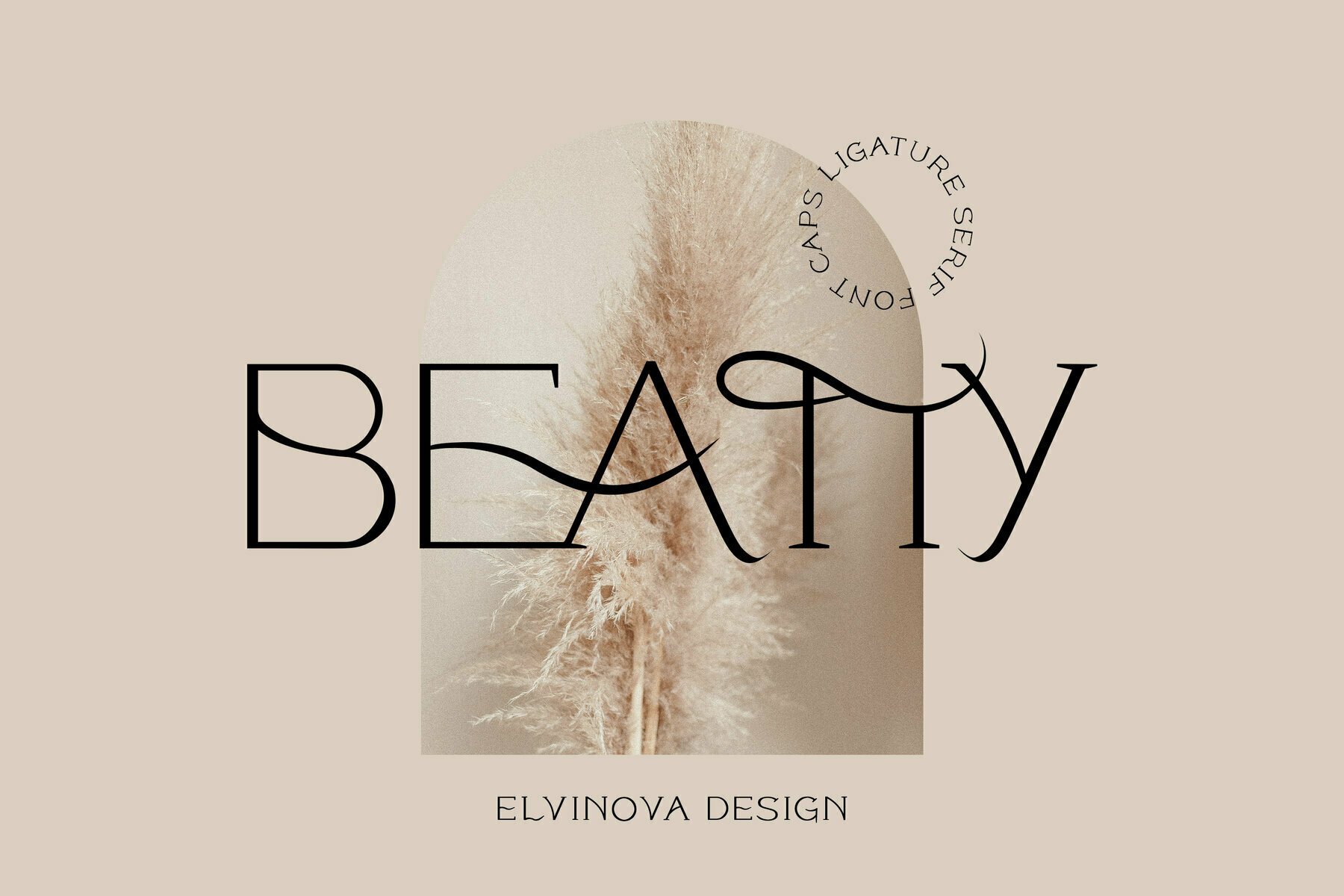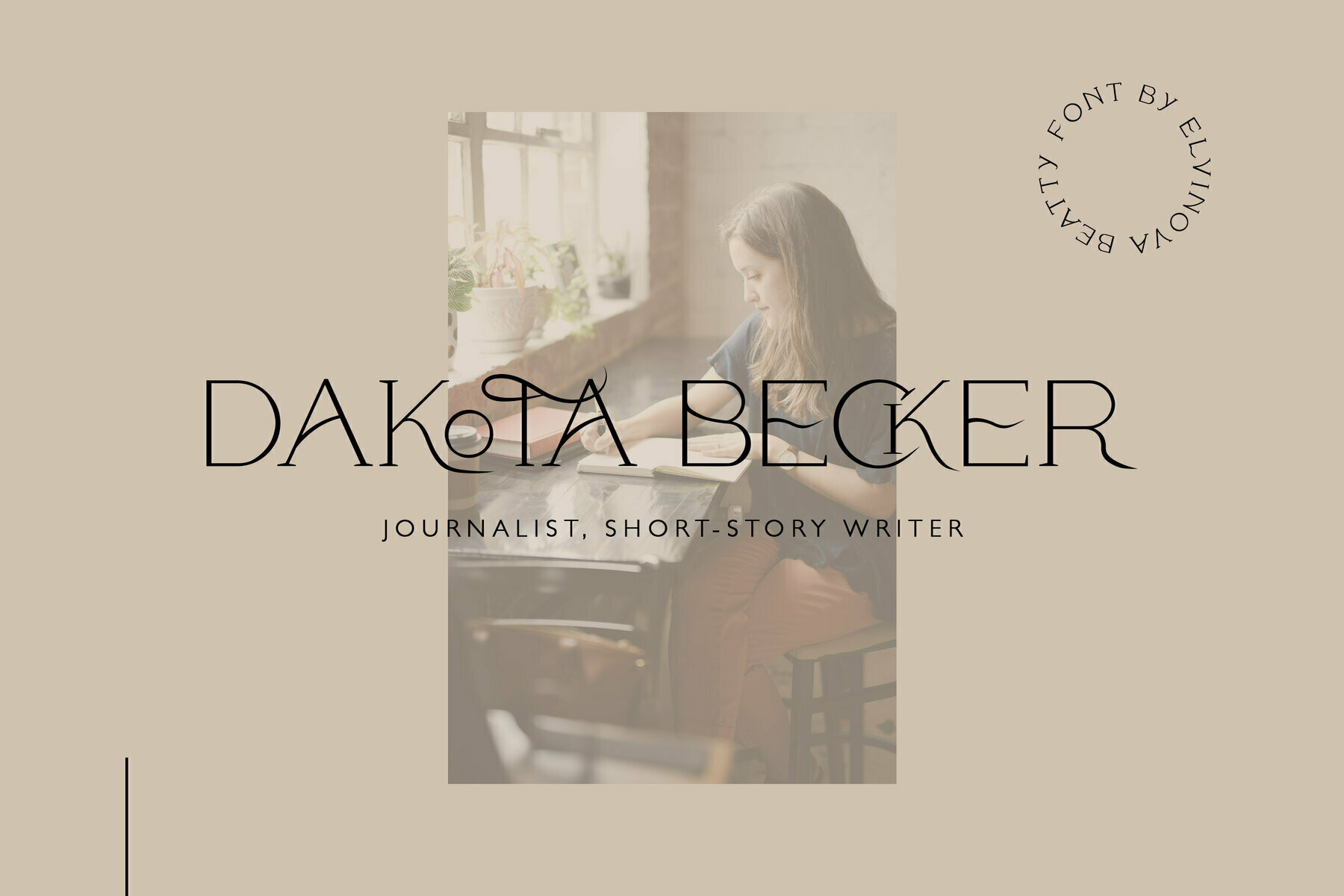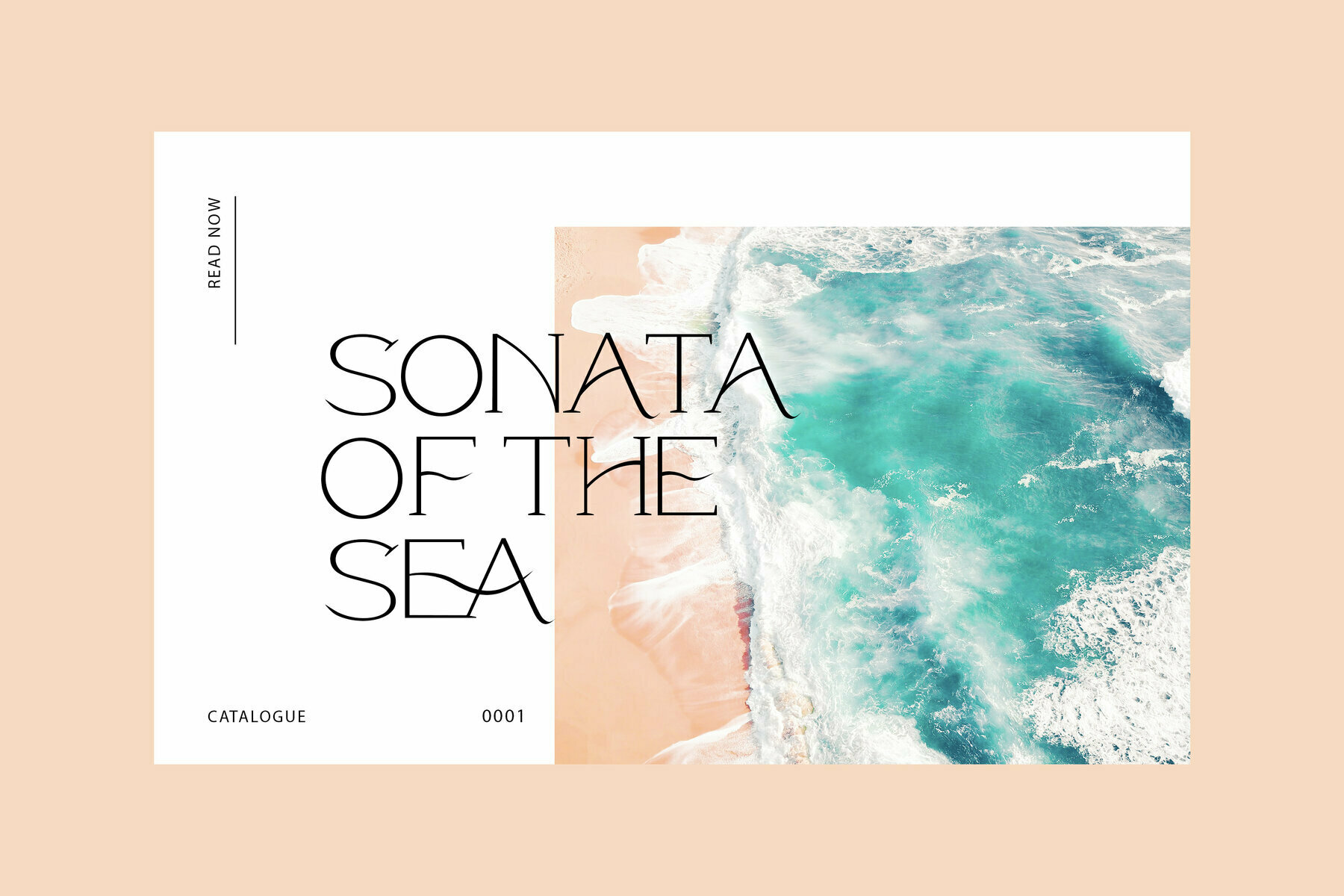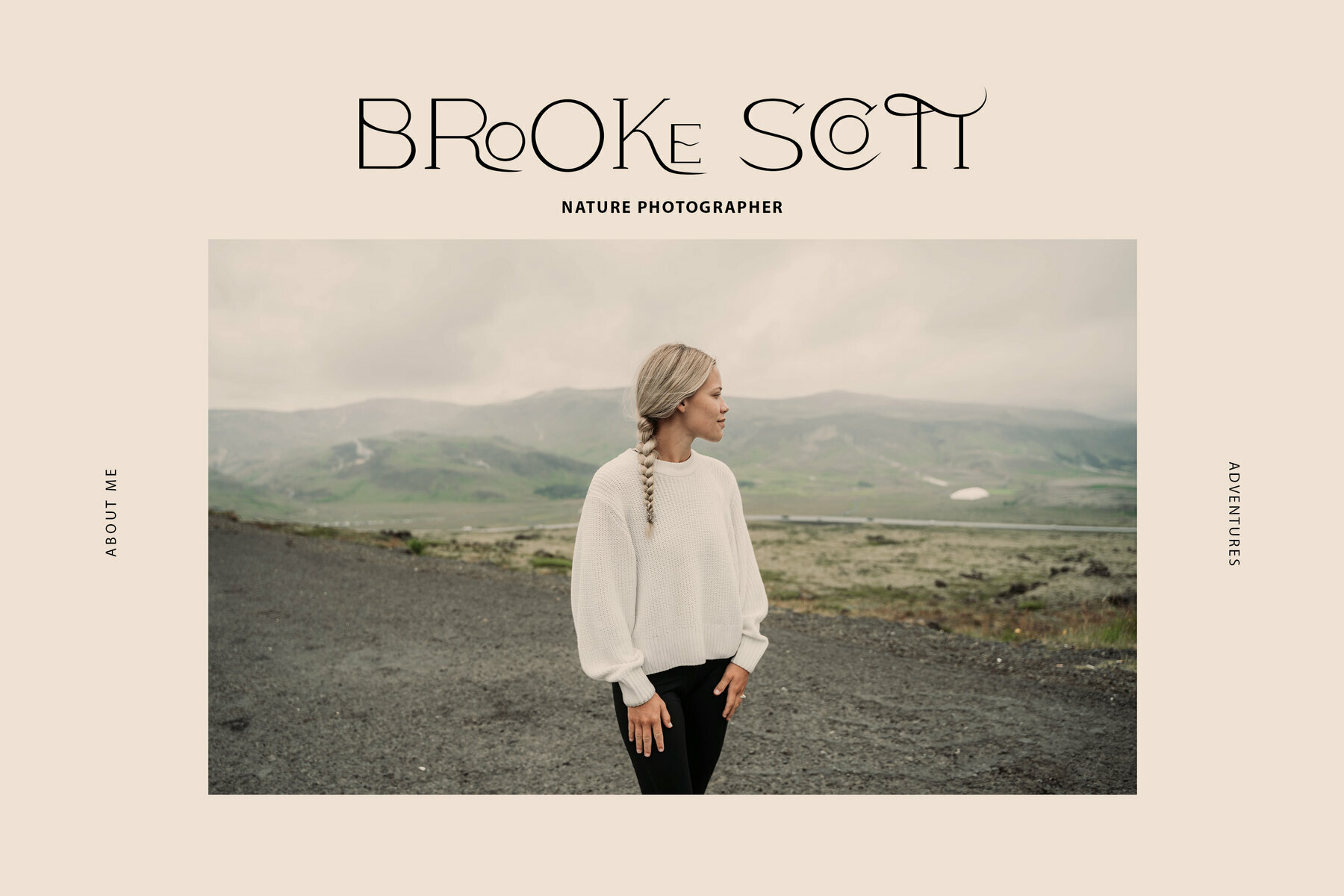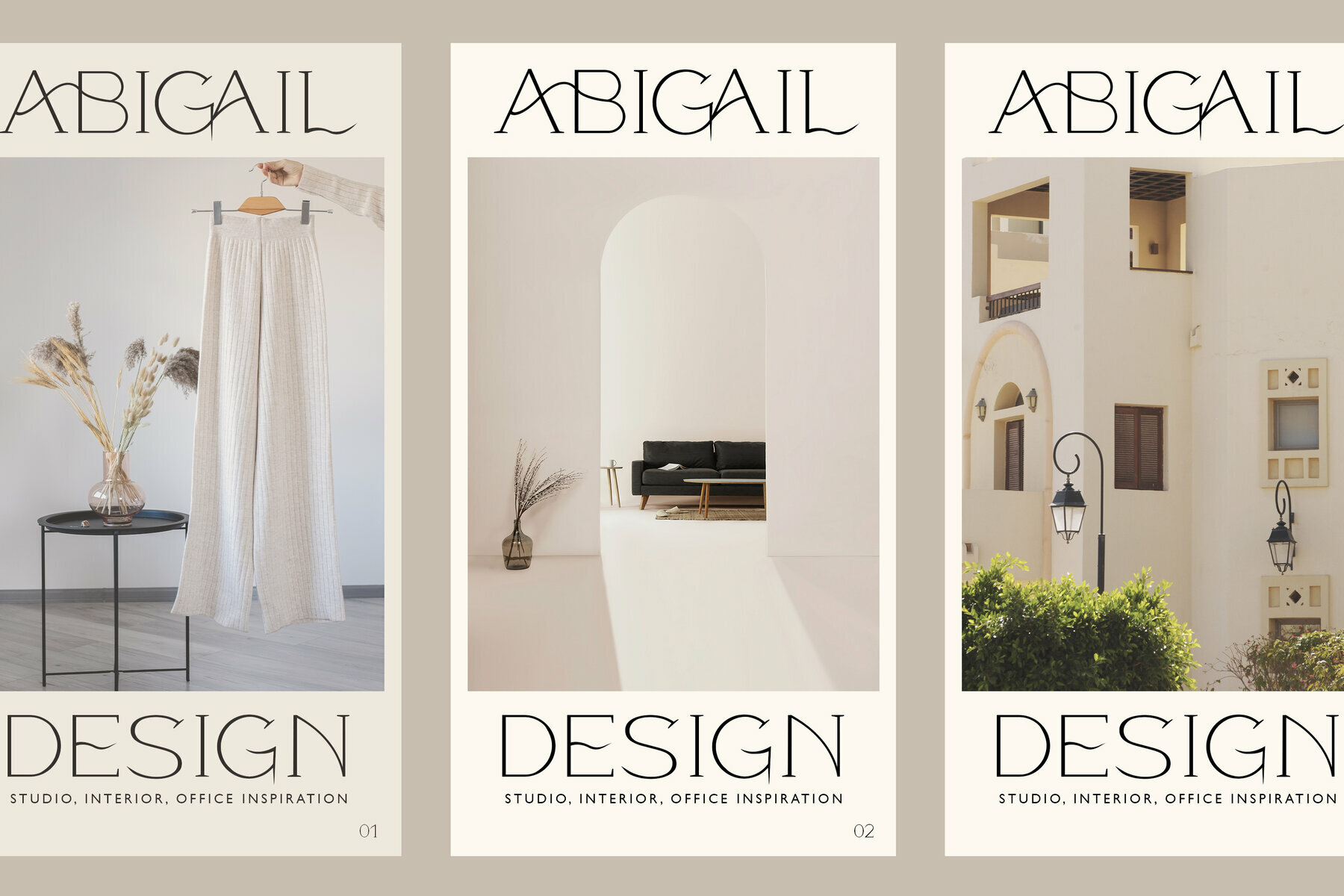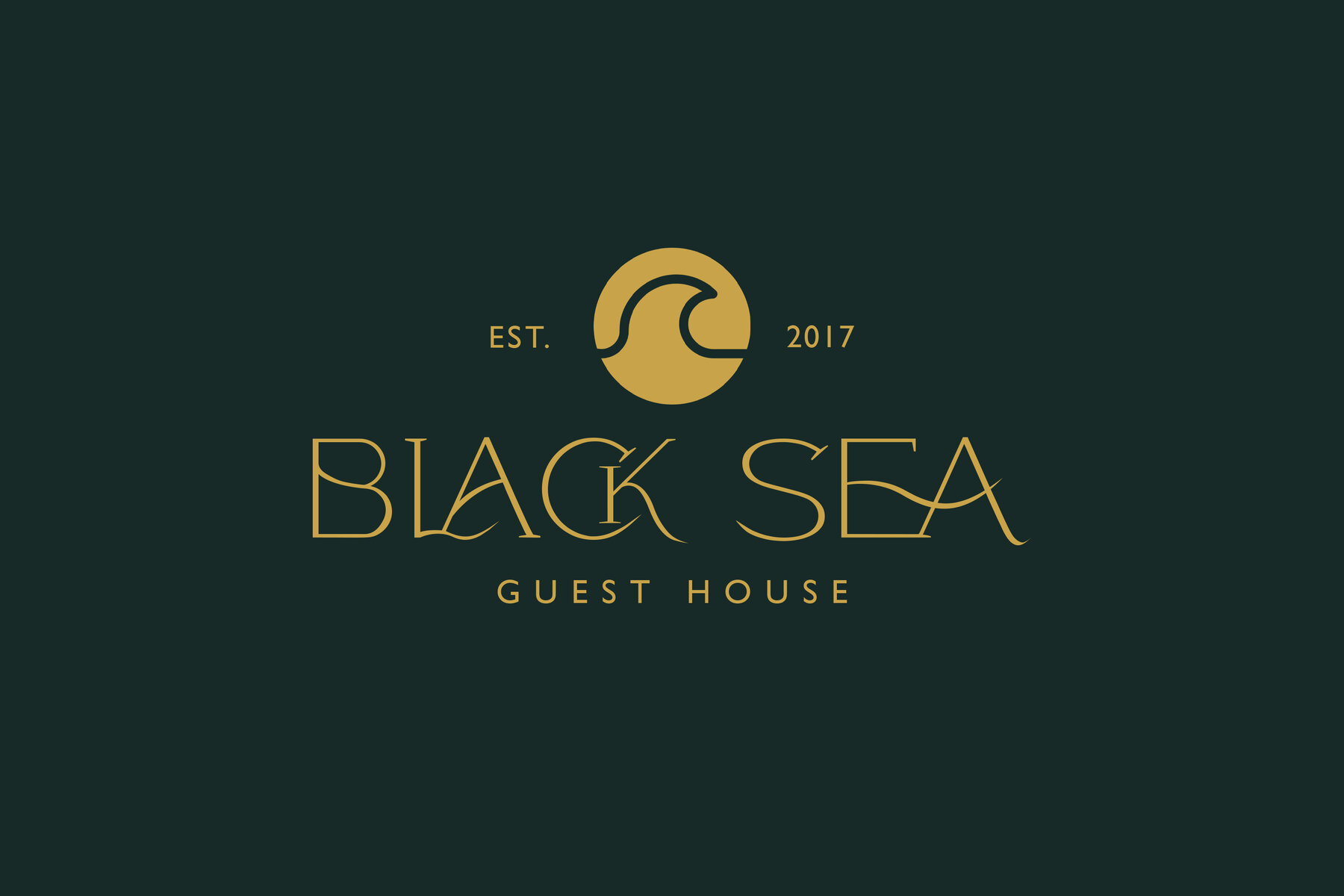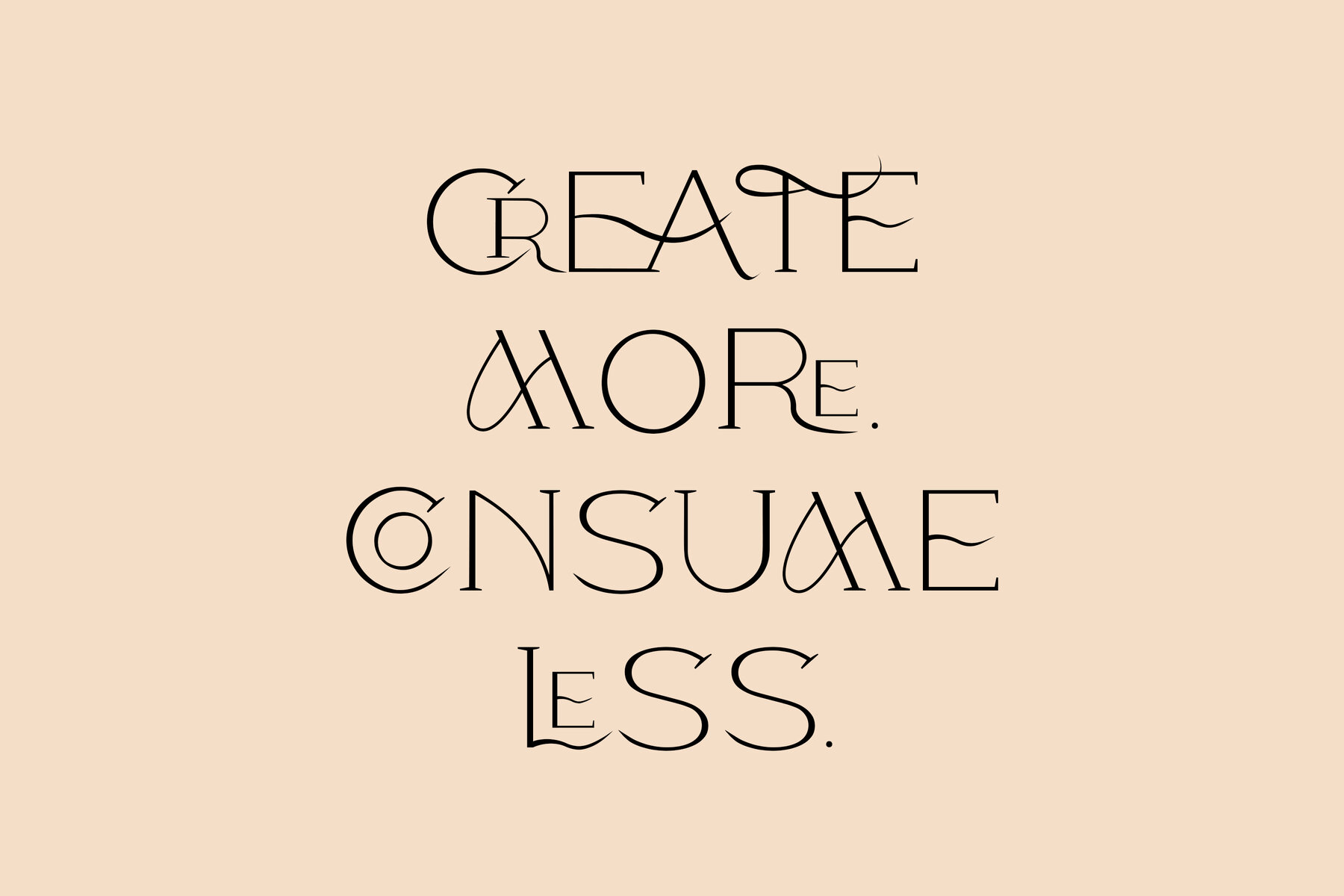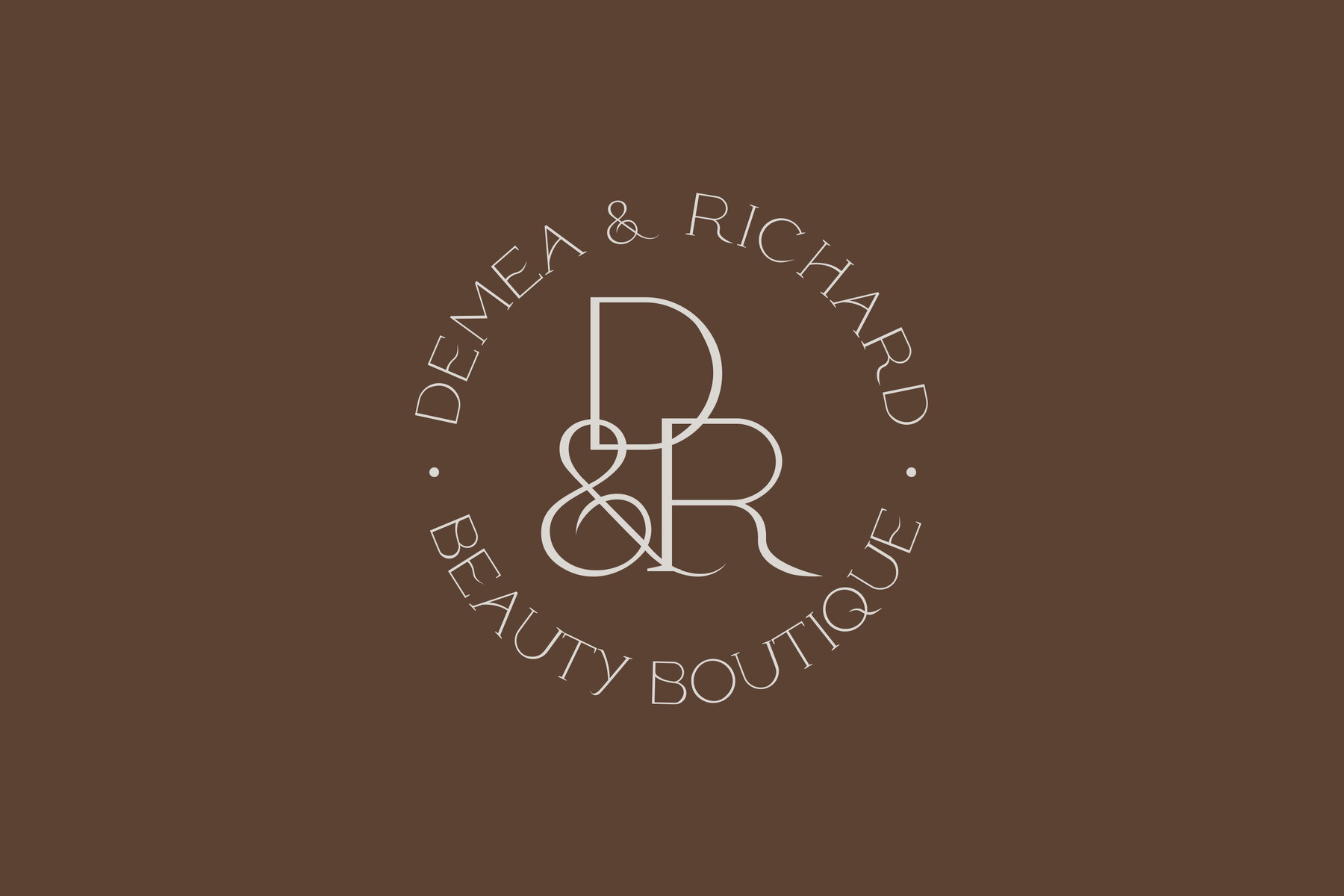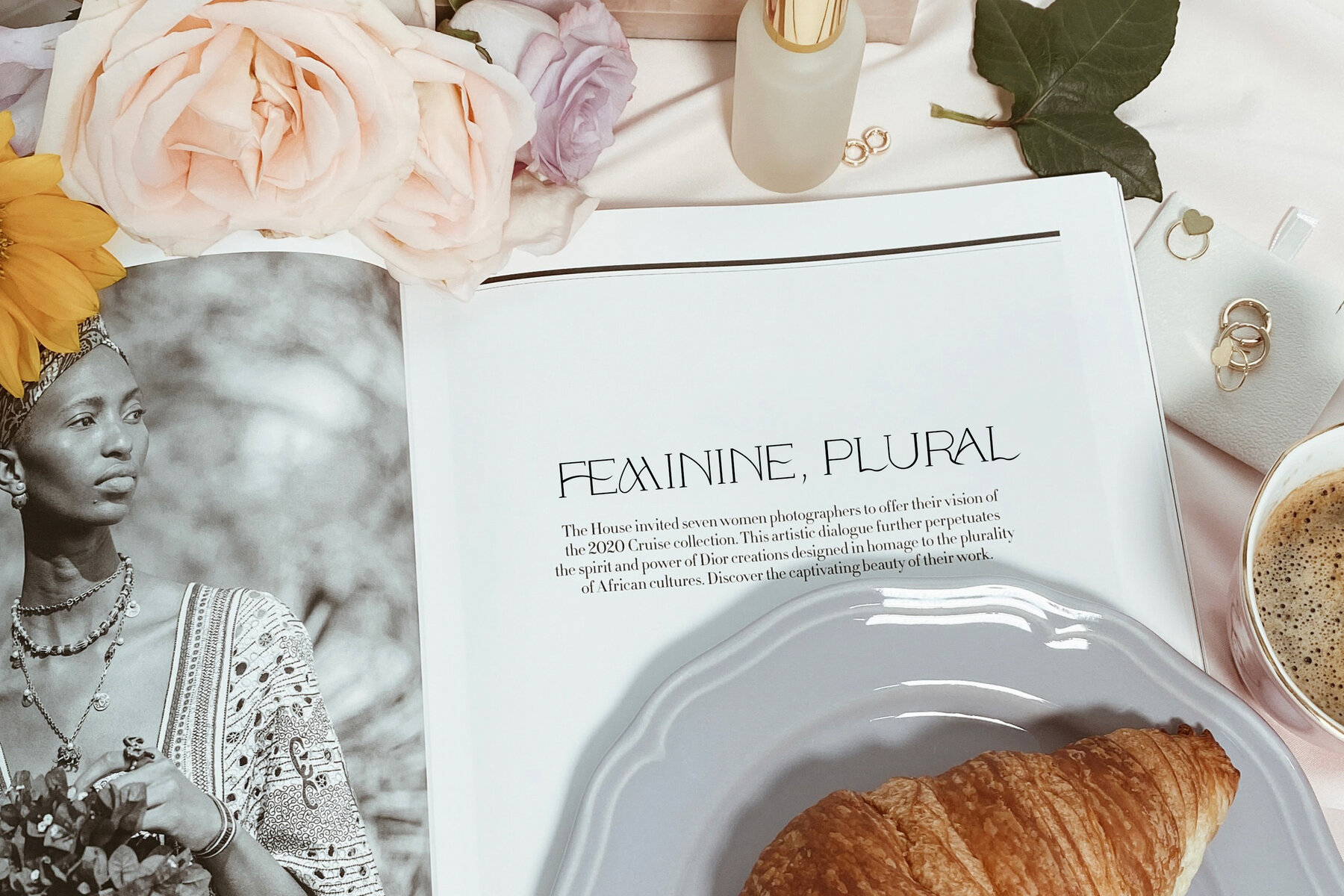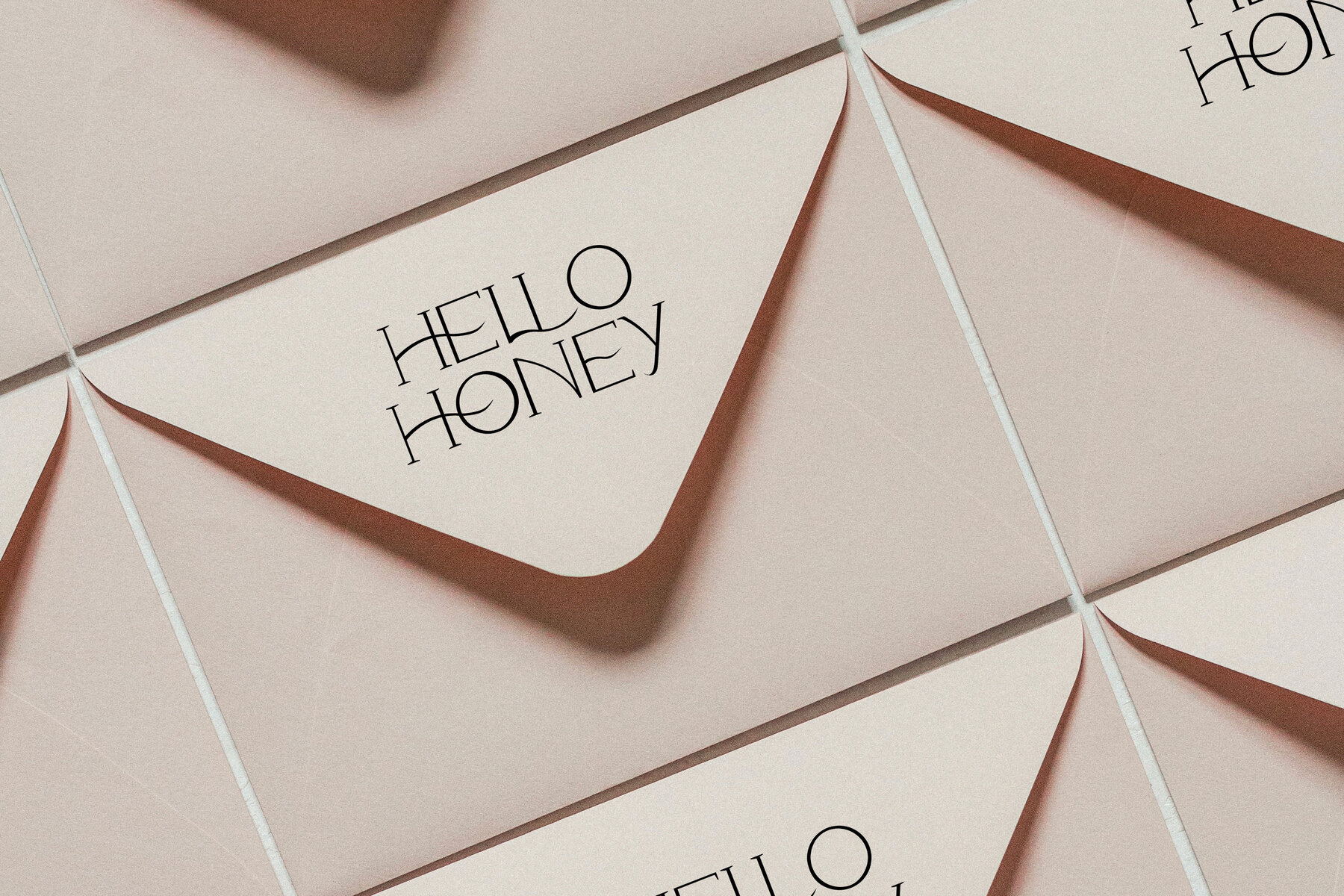
Beatty Font
Beatty Regular
The Beatty font by Elvinova embodies a refined elegance suitable for a range of creative applications. This all-caps serif typeface is versatile enough for branding, weddings, social media, and advertising projects, offering a sophisticated edge to your designs. Unlock the full potential of Beatty through your choice of letter spacing, adding a touch of class to your compositions. Ligatures and alternates are easily accessible via the Glyphs panel in Adobe software, further enhancing your design possibilities.Beatty: A Modern Classic Serif Typeface